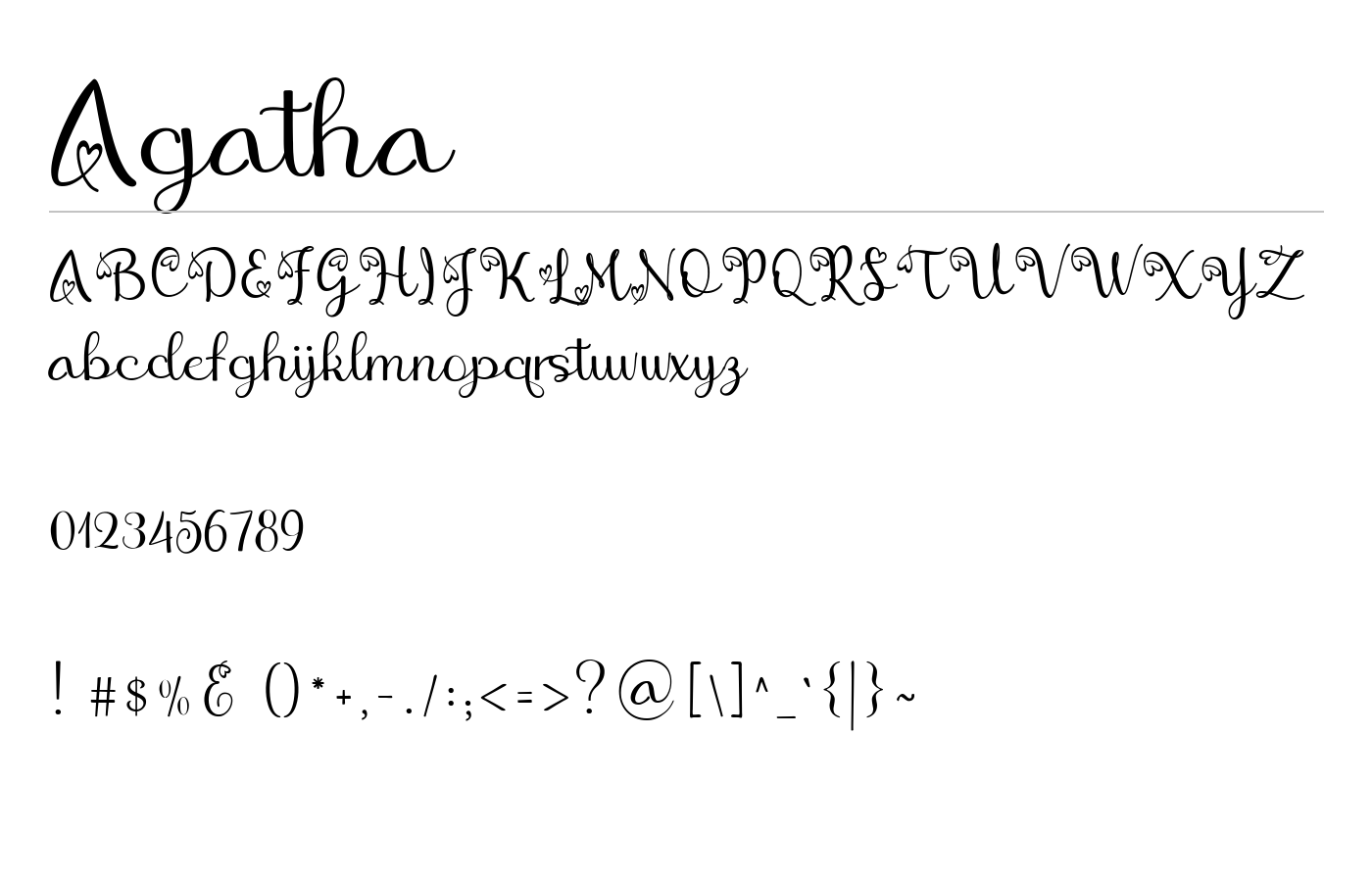
Agatha is a playful and elegant script font characterized by its delicate, flowing strokes and charming heart-shaped details on uppercase letters. This lightweight, narrow typeface offers a handwritten feel with its smooth curves and whimsical accents, making it ideal for romantic or feminine designs such as wedding invitations, greeting cards, or boutique branding. Its distinctive style brings a warm, personal touch that works beautifully in headlines and decorative text where a graceful, inviting tone is desired.
Agatha Font
About Agatha Font
| Font family | Agatha Font |
| Designer | Aqeela |